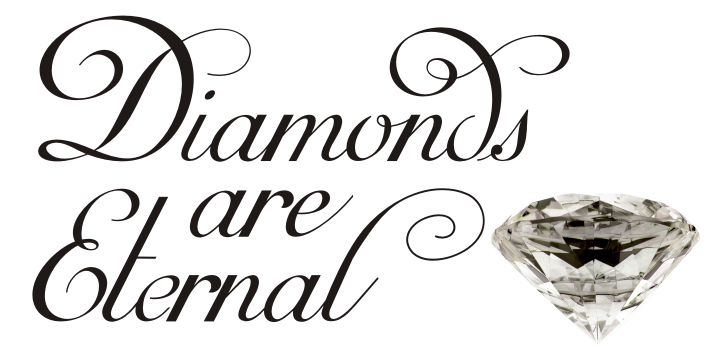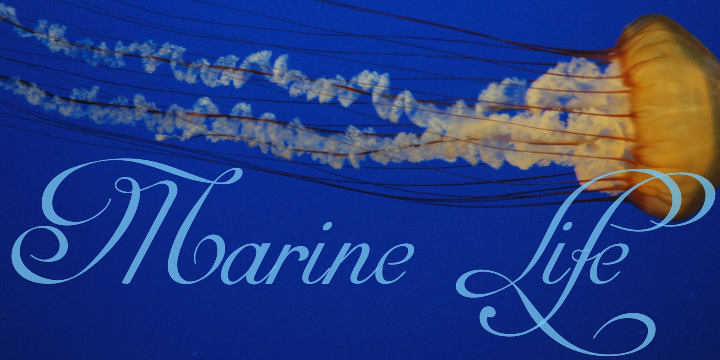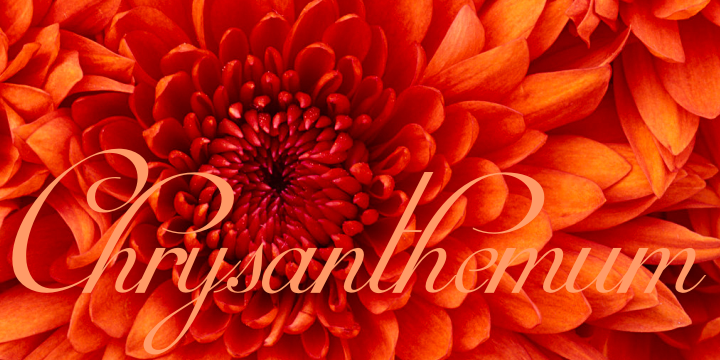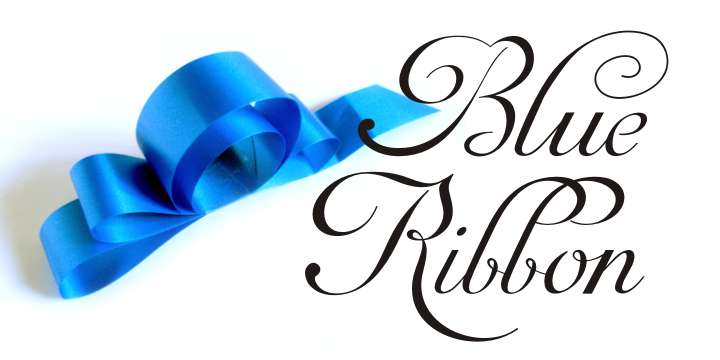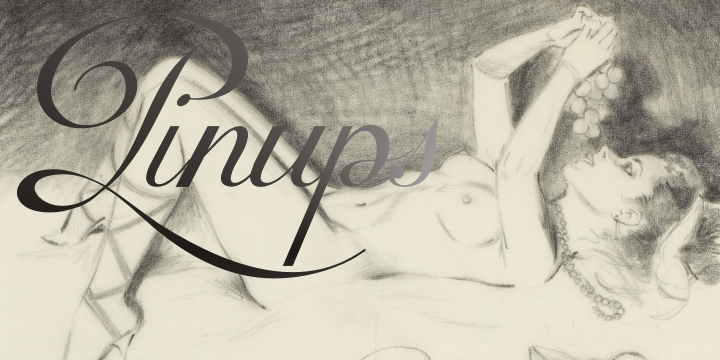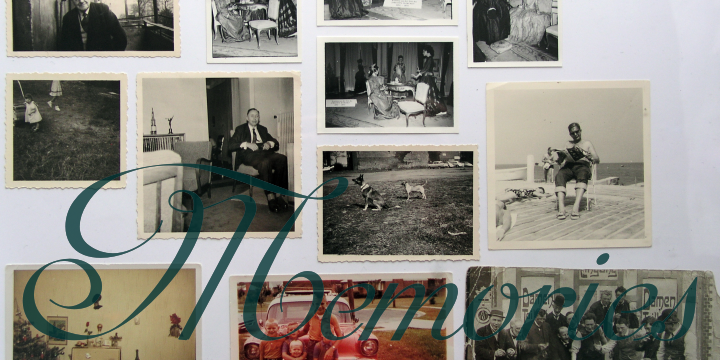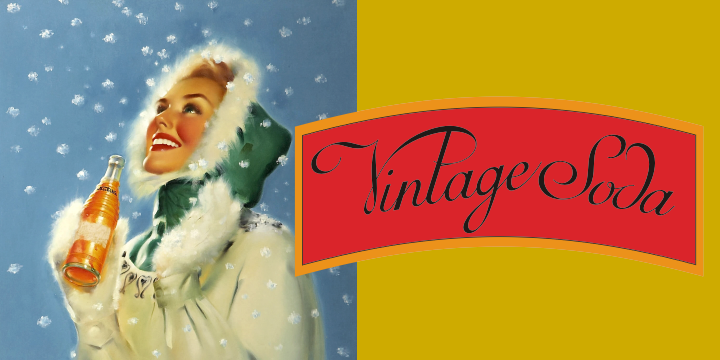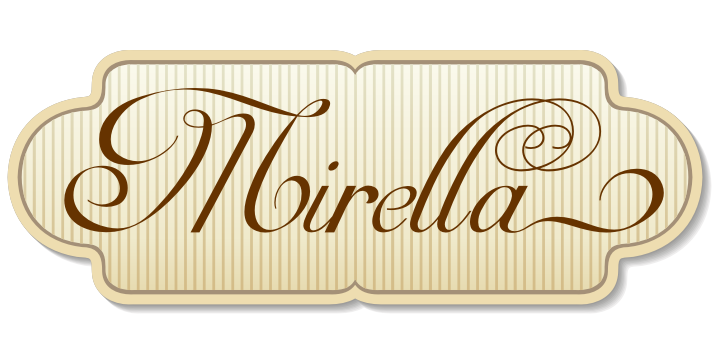
Mirella Script (1 font)
From Intellecta Design
Mirella Script is a modern and clean approach of the classic French Bastarde script style. Mirella has the follow resources:
- Lots os ligature forms (using contextual alternates open-type feature),
- many stylistic alternates for each letter (upper- and lowercase and all accessed with the glyph palette), a set of 55 ornaments and fleurons accessed with the glyph palette or using the Ornaments feature);
- initial and final letters with artistic variations accessible using the initial and final form open-type features
- a tour-de-force kerning work: almost 700 glyphs in this font was adjusted to your kern pairs handly.
In non-OpenType-savvy applications it works well as an unusual and beautiful script style font. We ever suggest the use of the glyph palette to find ideal solutions to specific designs, because the high number of glyphs. The sample illustrations will give you an idea of the possibilities. You have full access to this amazing stuff using InDesign, Illustrator, QuarkXpress and similar software.
Mirella Script has original letters designed by Iza W and overall creative direction plus core programming by Paulo W.